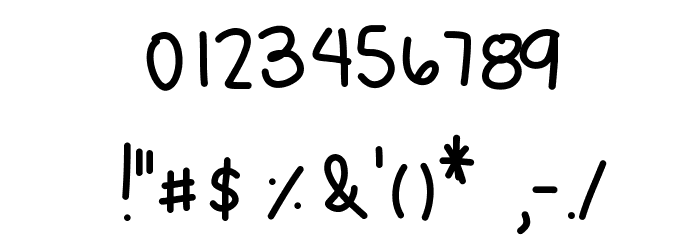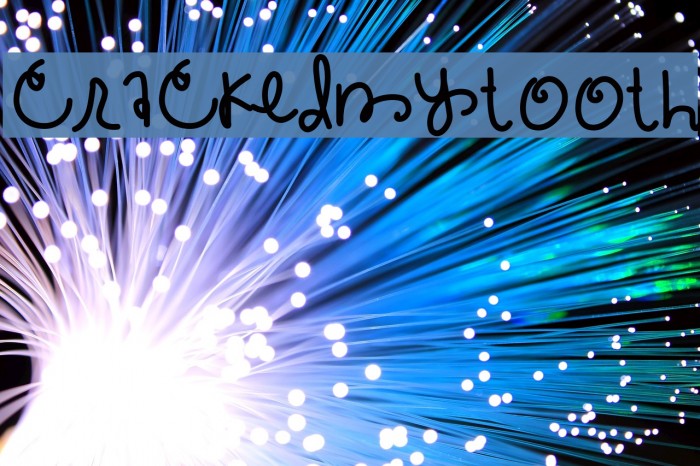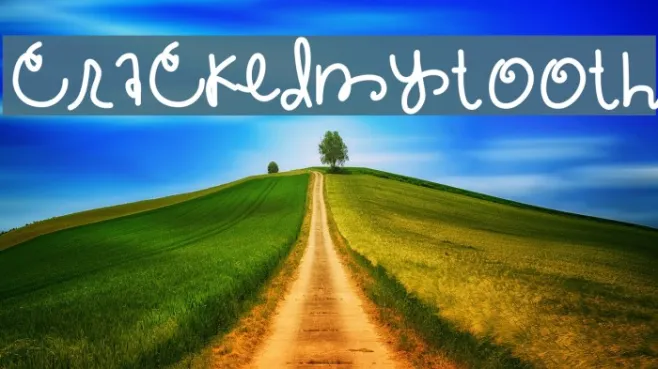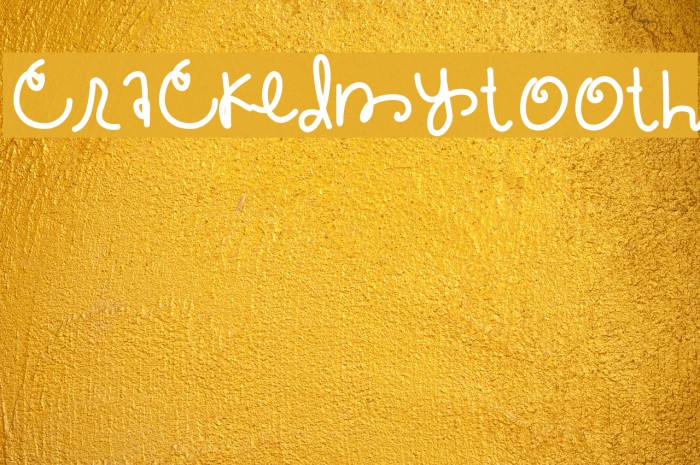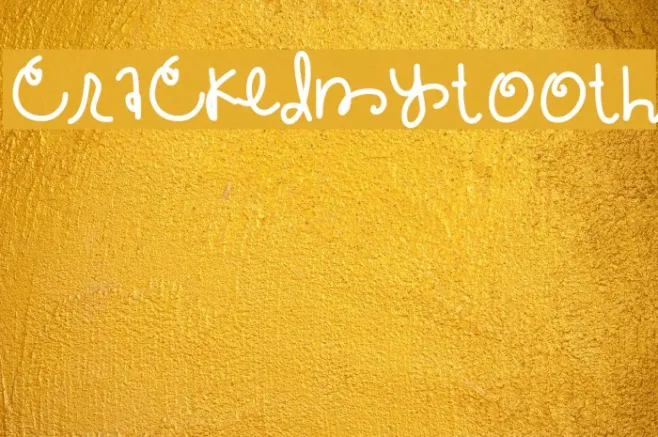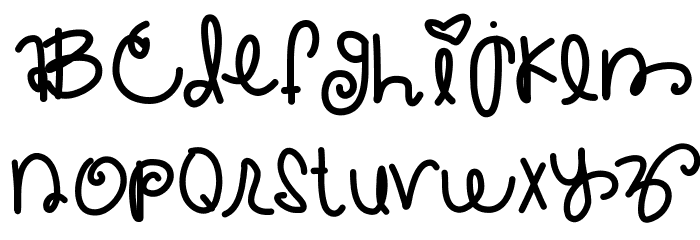
CrackedMyTooth Font
This playful and whimsical font features a handwritten style with a unique flair. Each character is crafted with a sense of fun and creativity, incorporating loops and curls that add a lively touch. The uppercase and lowercase letters maintain a consistent style, with some letters featuring heart-shaped elements that enhance its charm. Numbers and special characters are designed to match the overall aesthetic, making it versatile for various uses. The font's informal and friendly appearance makes it suitable for projects that aim to convey warmth and approachability.
A playful, handwritten font with whimsical loops and curls.
• Proposed Projects: Ideal for greeting cards, children's books, playful branding, and social media graphics.
• Category: Handwritten
• Contrast: Low
• Overall Style: Decorative
• Use Case: Logos, Headlines, Invitations